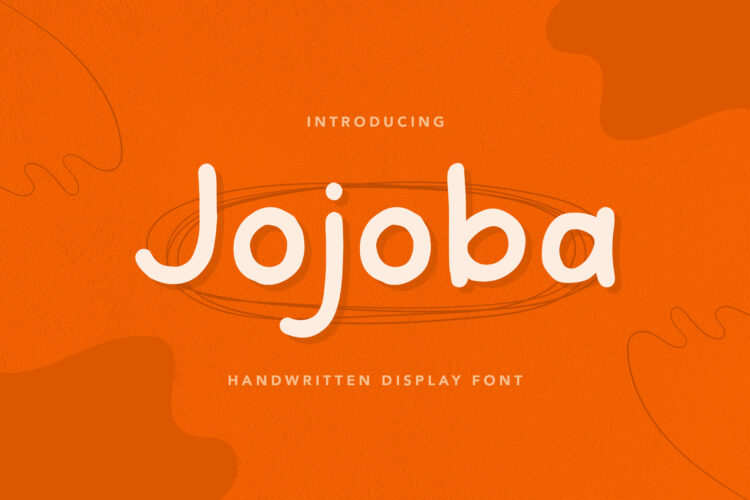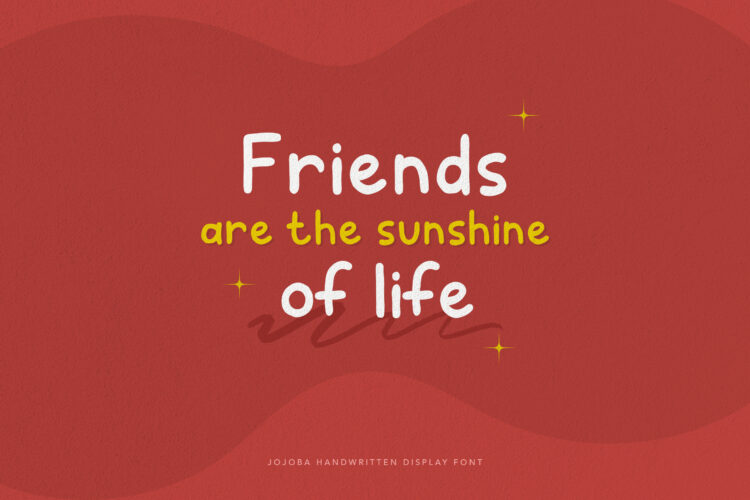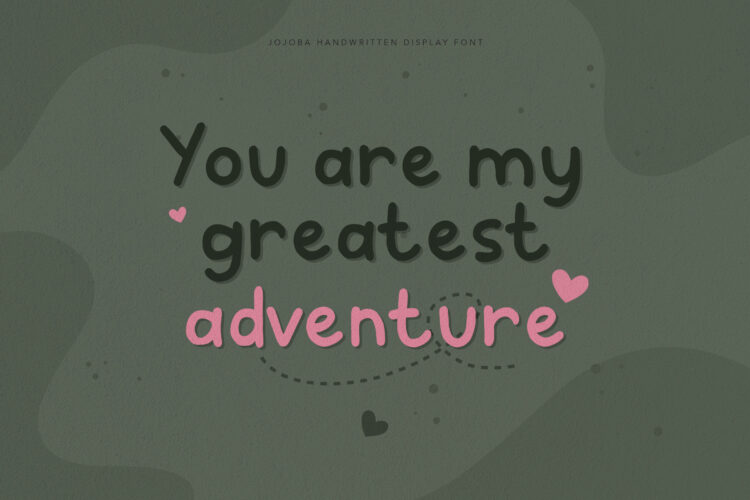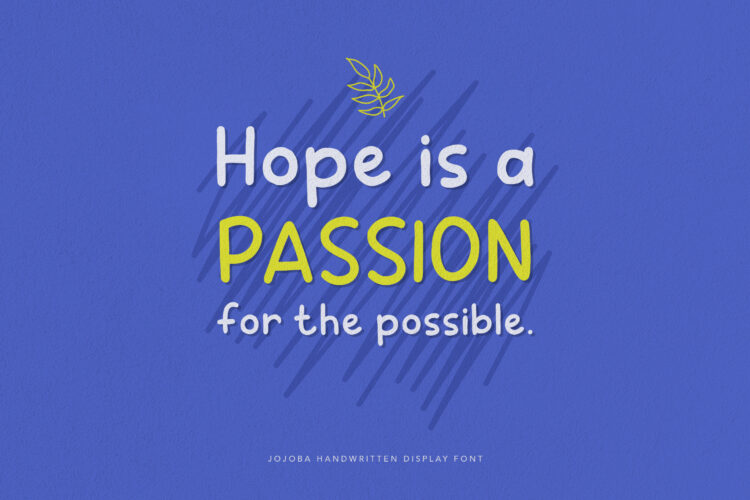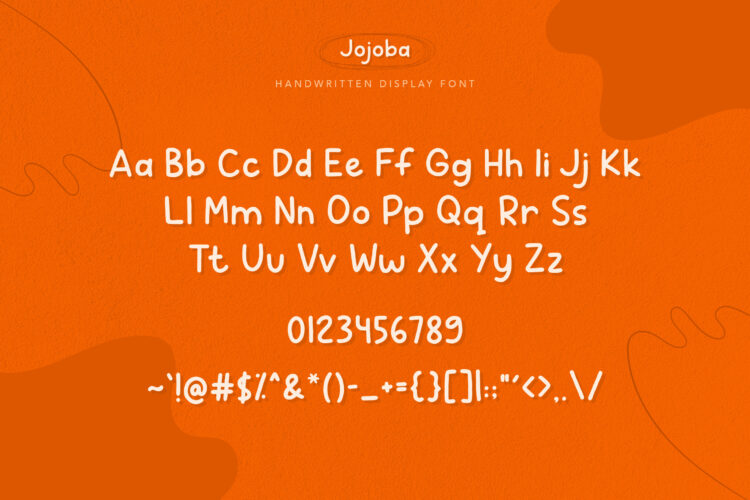
Something original, organic, simple and ordinary can be something amazing if you put it in the right place with the right combination, like our Jojoba, the simple handwritten font. Though it looks ordinary, but this font is really good for your display poster, quote, food love, romantic, motivational theme, even for kids theme. Want to use it for an overlay of any kind of your background images.
One pack of this font included uppercase and lowercase letters, number 0-9 and punctuation. With the complete pack, this font even good for writing regular based text of your daily needs or minimalist-themed text to make it more attractive and fun reading.
Jojoba-Simple Handwritten Font